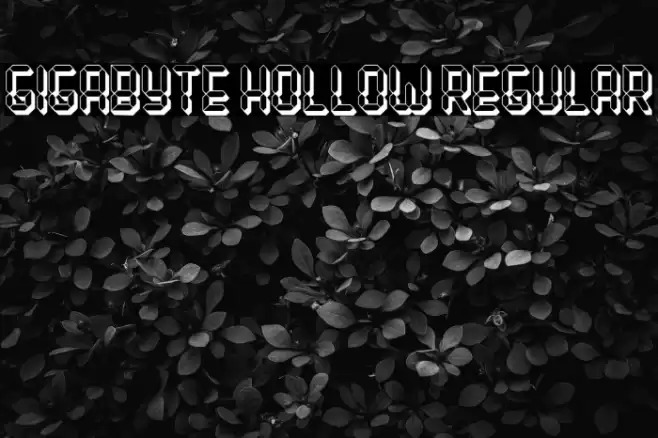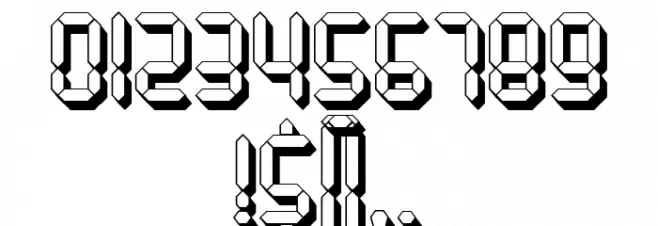
Gigabyte Hollow Regular Font
Gigabyte Hollow Regular Description
This font features a bold, geometric design with a hollow interior, giving it a three-dimensional appearance. The characters are constructed from angular, block-like shapes that create a futuristic and digital aesthetic. The hollow centers add a unique depth, making the letters appear as though they are crafted from metal or stone. This style is consistent across uppercase, lowercase, numbers, and special characters, maintaining a cohesive look. The font's design is both eye-catching and modern, suitable for projects that require a strong visual impact.
A bold, geometric font with a hollow, three-dimensional appearance from Uncategorized fonts.